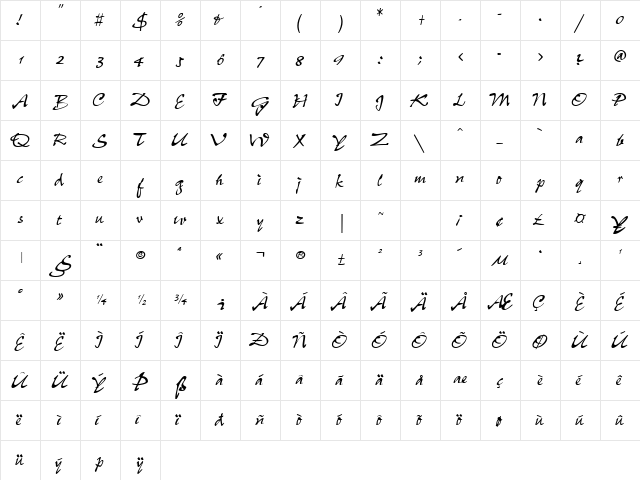
WheedleSSK Regular
Design Context for WheedleSSK Typeface
WheedleSSK is a composed and adaptable typeface that performs quietly and consistently across a wide range of design contexts.